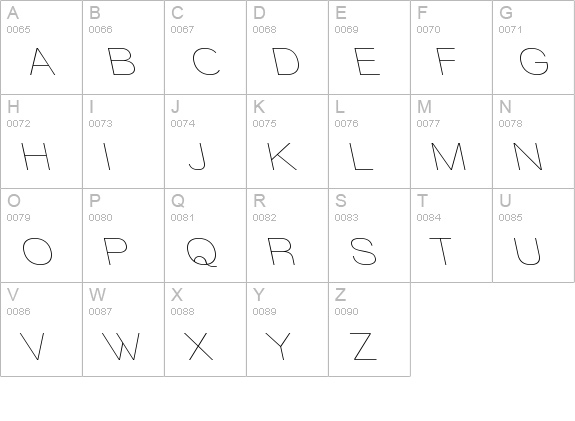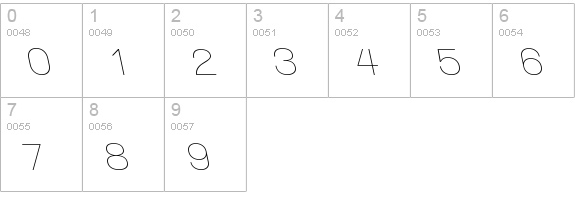
Walkway RevOblique is a stunningly versatile font that will elevate your design projects to new heights. With its bold and dynamic style, this font is perfect for creating attention-grabbing headlines, posters, logos, and more. The unique slanted and slightly skewed letters give it a modern and edgy look, making it a great choice for contemporary designs. What sets Walkway RevOblique apart is not just its striking aesthetic, but also the fact that it is available for free! Yes, you read that right. This incredible font can be downloaded for free at FontsMarket.com, allowing you to add a touch of sophistication to your designs without breaking the bank. Whether you're a professional designer or a passionate DIY enthusiast, Walkway RevOblique will undoubtedly become an invaluable tool in your creative arsenal. Its versatility and eye-catching appeal make it suitable for a wide range of design projects, from branding and advertising to invitations and social media graphics. Download Walkway RevOblique today and discover the endless possibilities that this font offers. Transform your designs into captivating works of art, all while enjoying the freedom of using a high-quality font that won't cost you a penny. Don't miss out on this amazing opportunity to take your designs to the next level - get Walkway RevOblique for free at FontsMarket.com now!